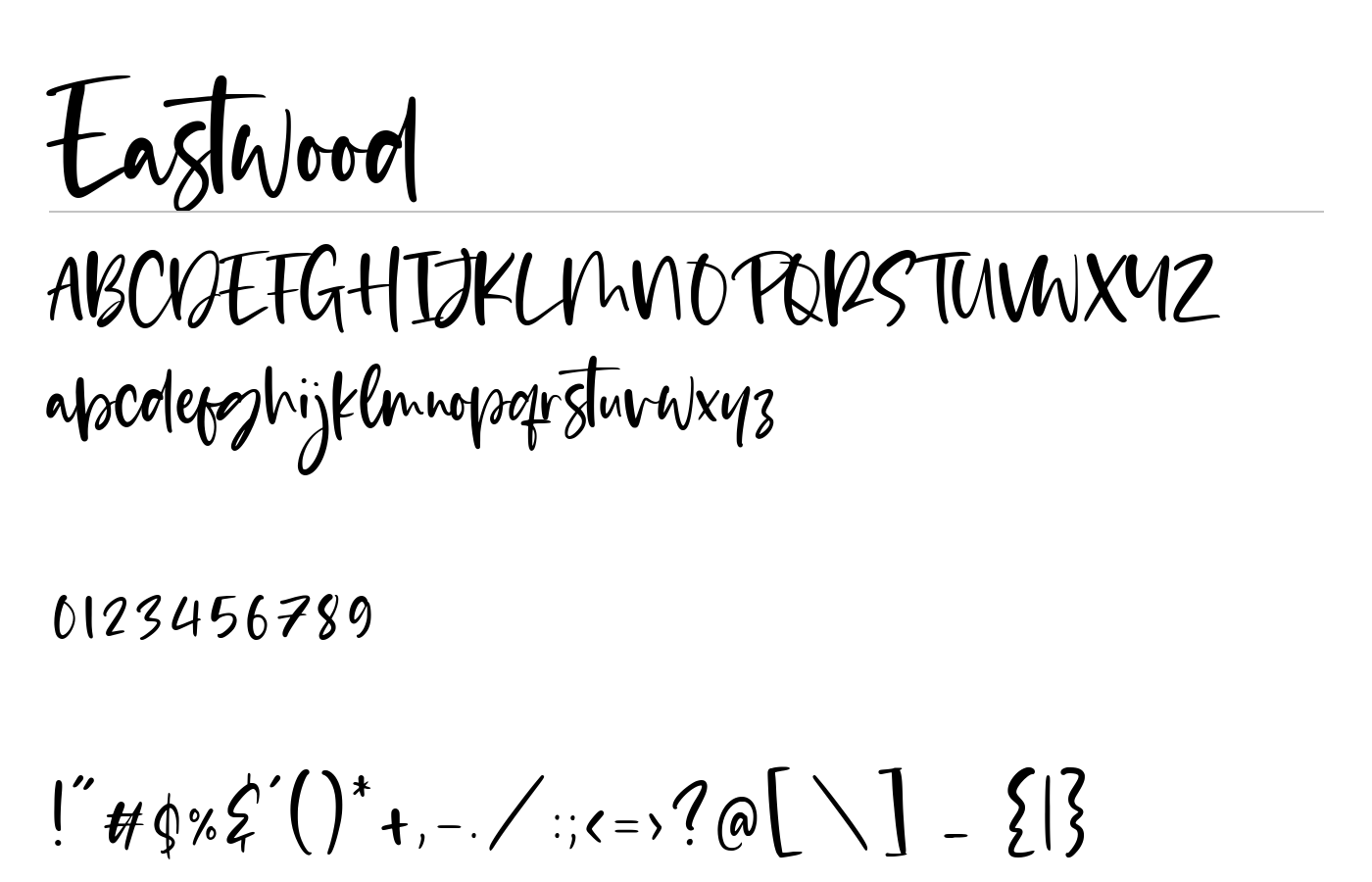
Eastwood Stylish Bold Script Font
Eastwood Stylish Bold Script Font is perfect for product packaging, branding project, magazine, social media, weddings, or just used to express words above the background. This free typeface was designed by a talented Balpirick Studio. If you like it don’t forget to check out the full version.